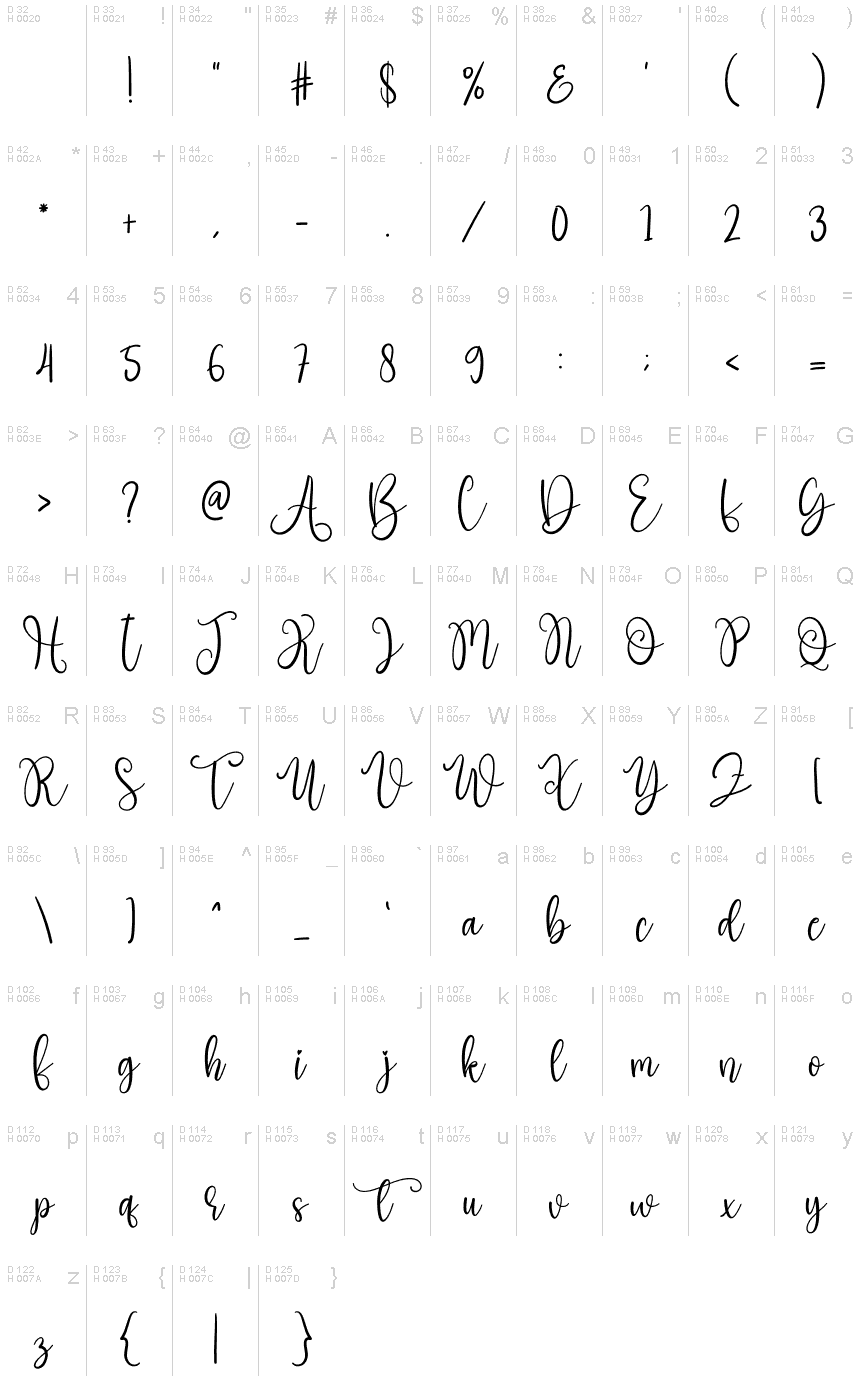
Blackbeer
Blackbeer is a captivating handwritten font designed by scratchones. Its playful and semi-light weight makes it perfect for a variety of projects, including greeting cards, social media graphics, invitations, and even product packaging. The charmingly imperfect letterforms of Blackbeer add personality and warmth to any design. Whether you're creating a brand identity or crafting a personal project, this versatile font is sure to add an authentic touch. With its unique style and easy readability, Blackbeer is an excellent choice for anything from whimsical wedding invitations to fun-loving food packaging.
the latest style letters are perfect for wall displays, wedding invitations, social media post logos, advertisements, product packaging, product designs, labels, photography, watermarks, invitations, stationery, and any project that requires taste handwriting.